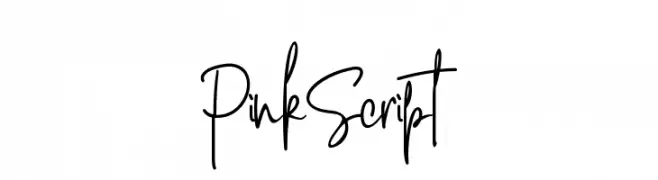
A playful, bold handwritten font with rounded strokes and a dynamic slant.
A whimsical and playful script font with fluid, artistic letterforms.
A fluid and dynamic handwritten font with an elegant cursive style.
A decorative font with cursive script letters inside bold heart shapes.
A festive collection of Christmas-themed dingbats featuring ornaments, gifts, and holiday symbols.
A decorative serif font with floral patterns in uppercase letters.
A playful, casual script font with a handwritten style.
A casual, handwritten-style font with a warm and personal touch.
A whimsical, hand-drawn script font with playful curves and artistic flair.
A playful, handwritten font with bold strokes and a casual, organic feel.
A playful, casual handwritten font with dynamic strokes.
A playful, whimsical font with flowing, cursive-like strokes and decorative flair.
A playful, informal handwritten font with irregular strokes and a casual appearance.
A playful, hand-drawn font with a sketch-like, whimsical appearance.
A dynamic, expressive handwritten font with fluid, cursive strokes.